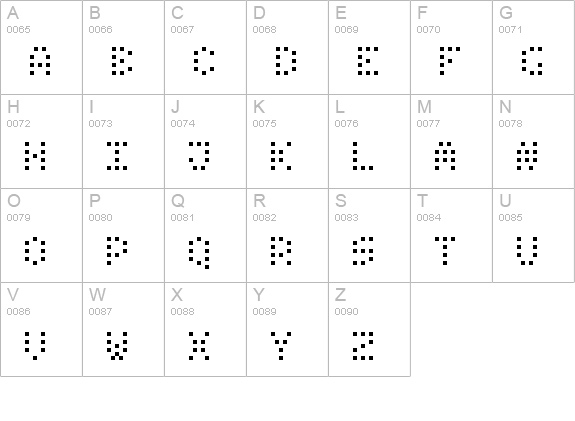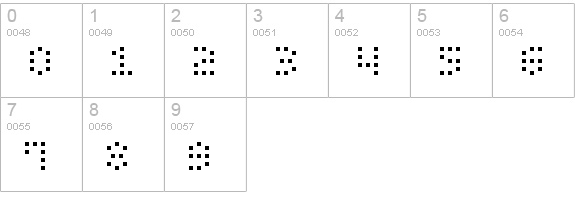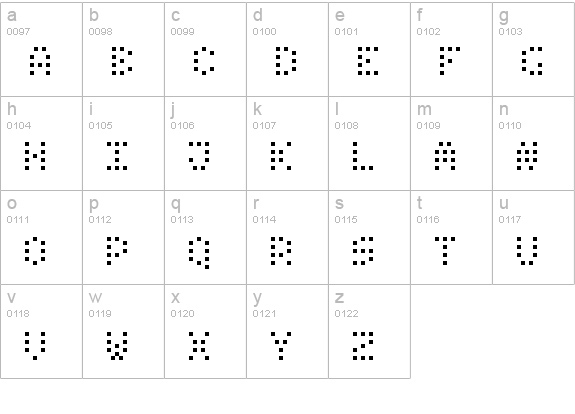
Small Dot Digital-7 is a sleek and modern font that exudes a sense of sophistication and precision. Its clean and minimalist design makes it perfect for a wide range of applications, from digital interfaces to print materials. The font features rounded dots that create a futuristic and tech-inspired look, making it ideal for projects that require a contemporary aesthetic. What sets Small Dot Digital-7 apart is its versatility. With its compact size and precise spacing, this font can be used effectively in both small and large sizes, ensuring readability and visual appeal across various platforms. Whether you're designing a website, creating a logo, or crafting marketing materials, Small Dot Digital-7 will effortlessly elevate your work to the next level. And the best part? Small Dot Digital-7 is available for free! You can easily download this font at FontsMarket.com, a trusted source for high-quality fonts. With just a few clicks, you can add this modern and stylish typeface to your collection, without any cost involved. It's an opportunity to enhance your designs without breaking the bank. Small Dot Digital-7 is not only visually stunning but also highly practical. Its clear and legible letterforms ensure easy readability, even at smaller sizes. Additionally, the font's digital-inspired dots add a touch of uniqueness and personality, setting your designs apart from the crowd. Whether you're creating a website, designing an app, or working on a branding project, Small Dot Digital-7 will undoubtedly leave a lasting impression. In conclusion, Small Dot Digital-7 is a must-have font for anyone looking to add a modern and sophisticated touch to their designs. With its sleek design, versatility, and free availability at FontsMarket.com, there's no reason not to give this font a try. Elevate your projects with Small Dot Digital-7 and make a lasting impression on your audience.